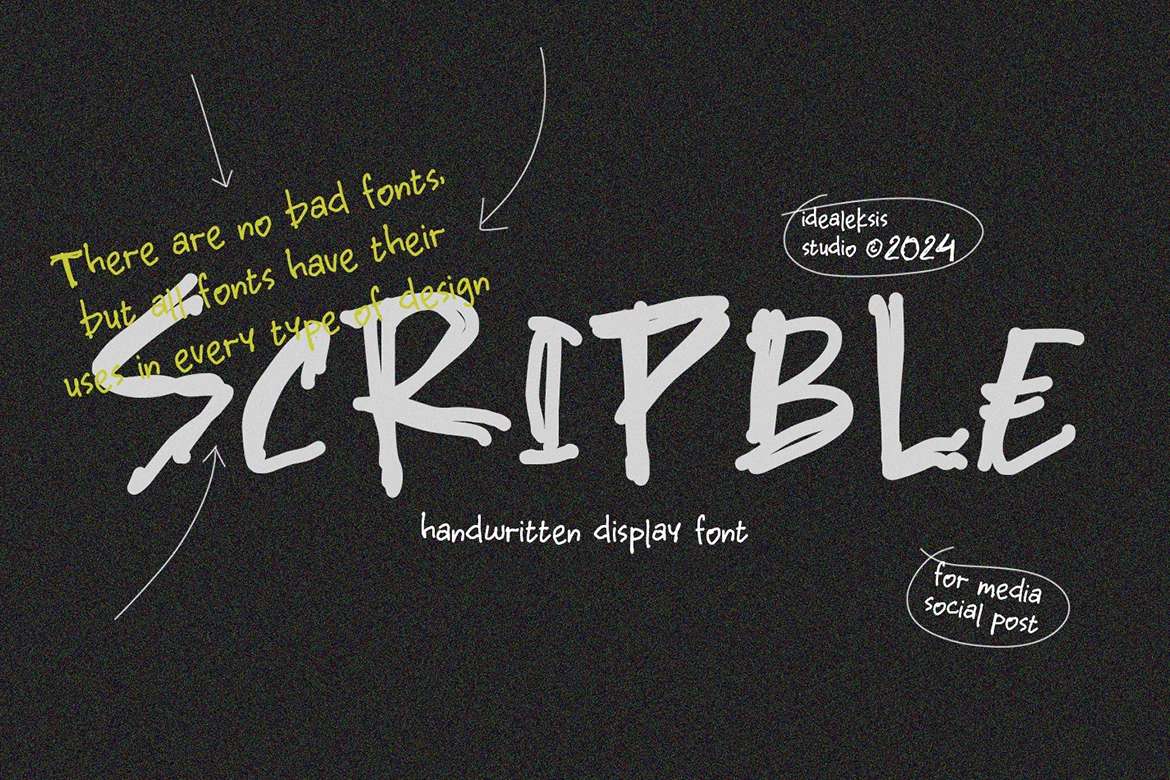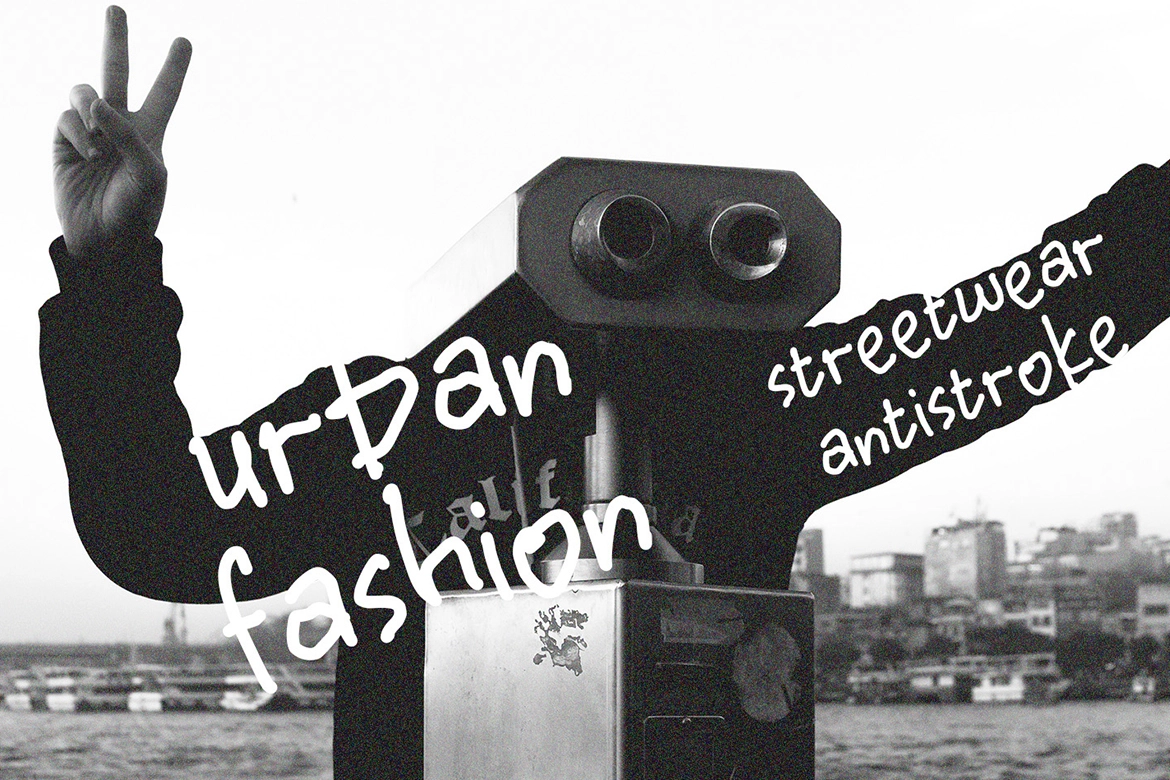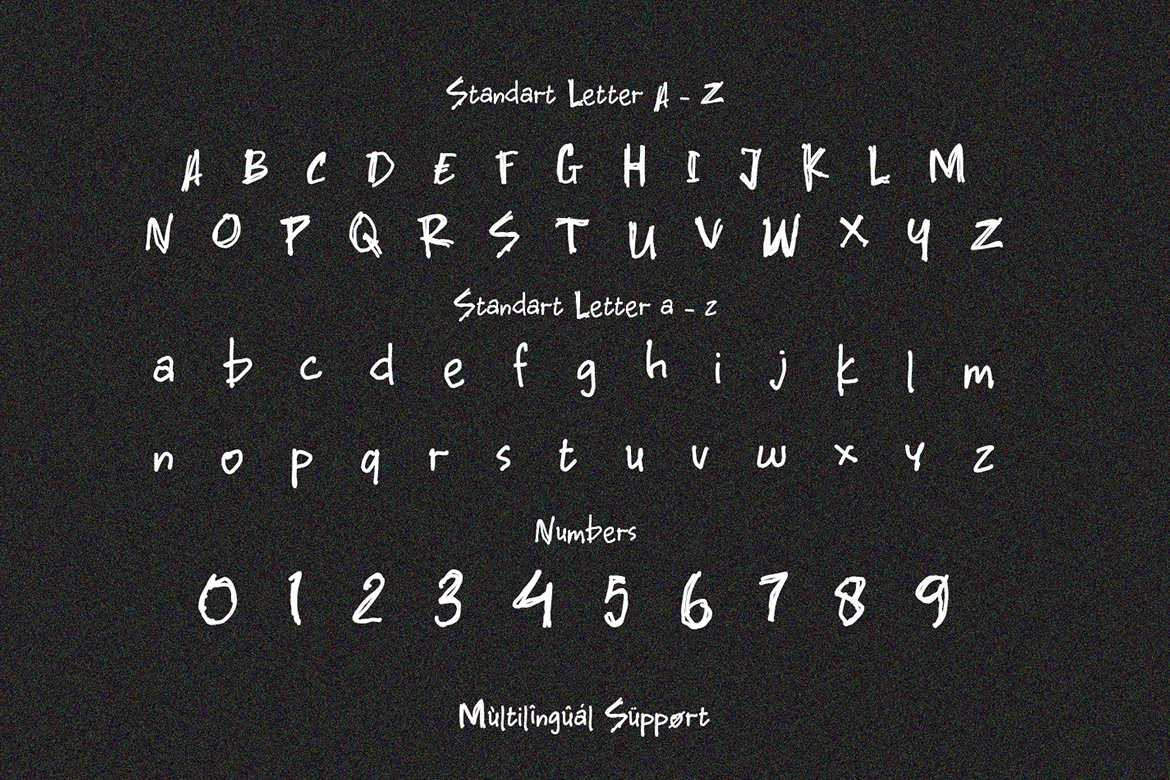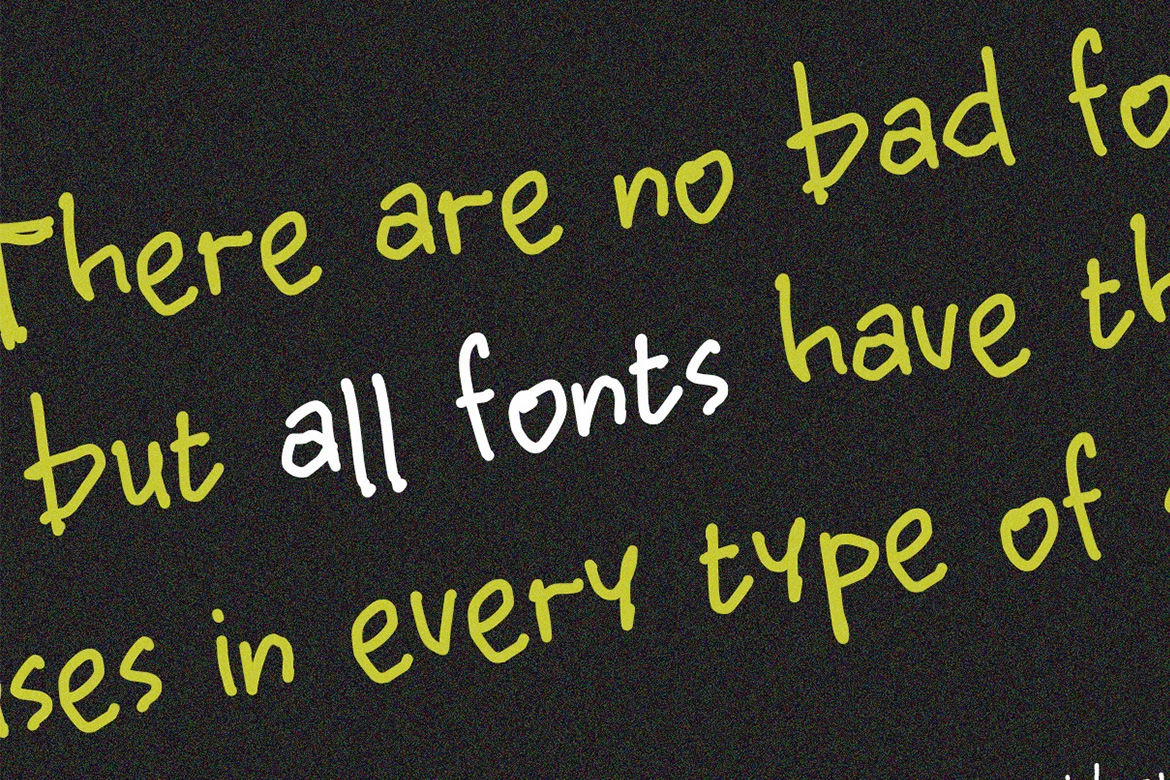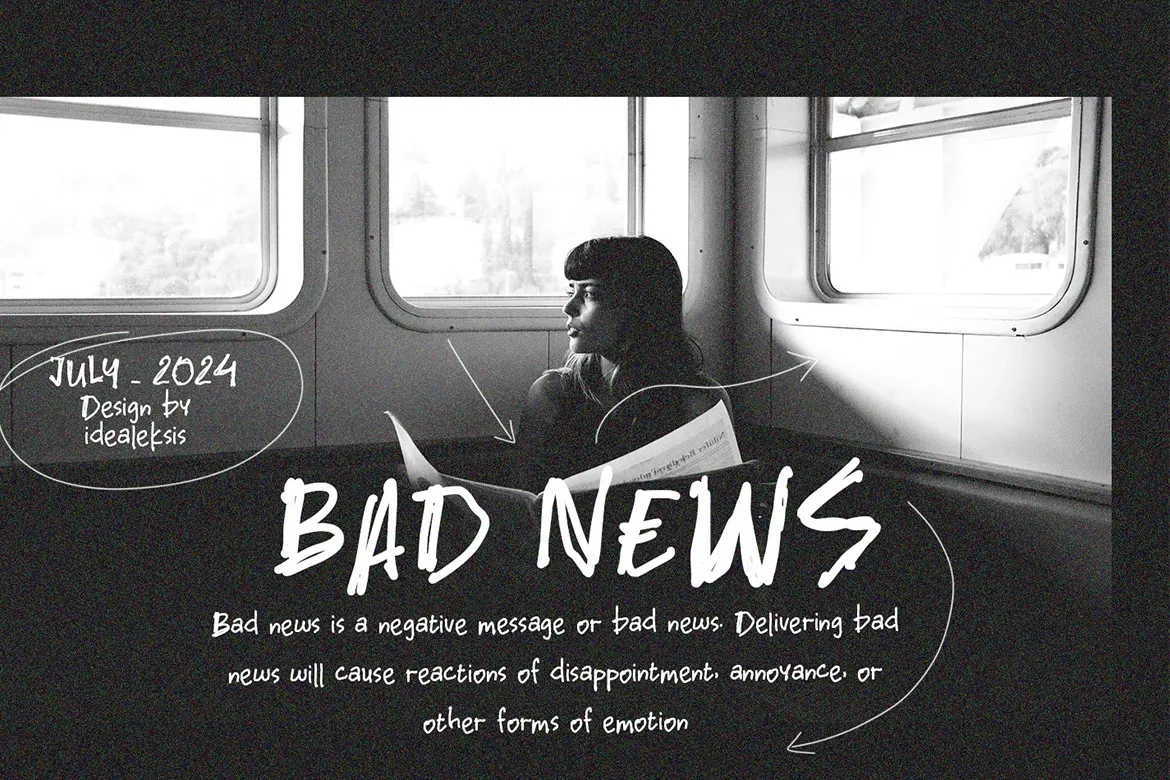
Scripble - Scribbles Handwritten Font
Scripble
Scripble - Scribbles Handwritten Font is a playful handwritten display typeface inspired by spontaneous marker strokes and casual doodles. Its imperfect, sketch-like letterforms create a natural hand-drawn feel that adds personality and authenticity to any design.
This font is perfect for projects that need a relaxed, creative vibe — from social media graphics, posters, and quotes to branding, invitations, packaging, and personal projects. The organic strokes and expressive style make Scripble ideal for designs that celebrate creativity and individuality.